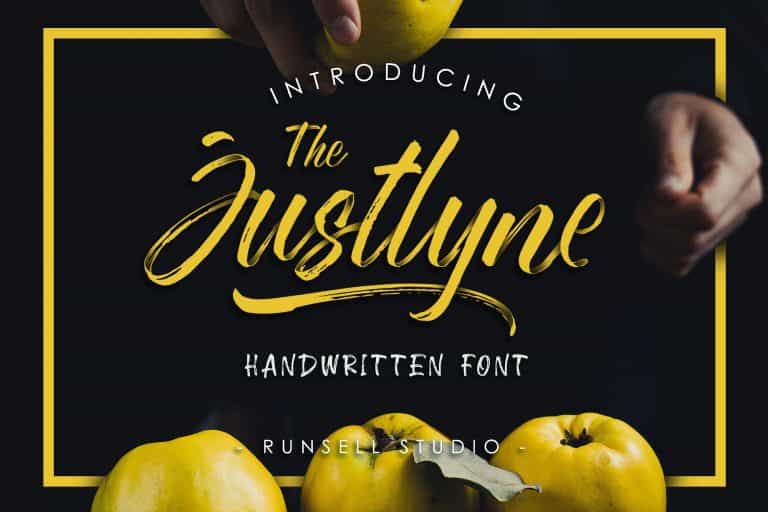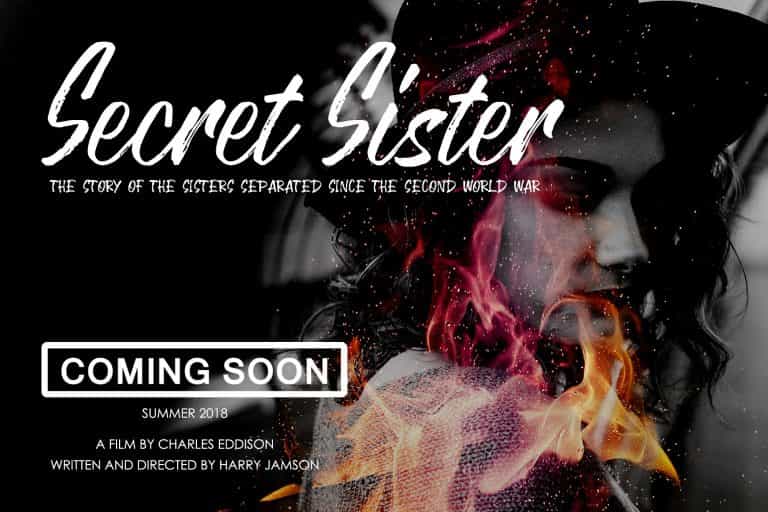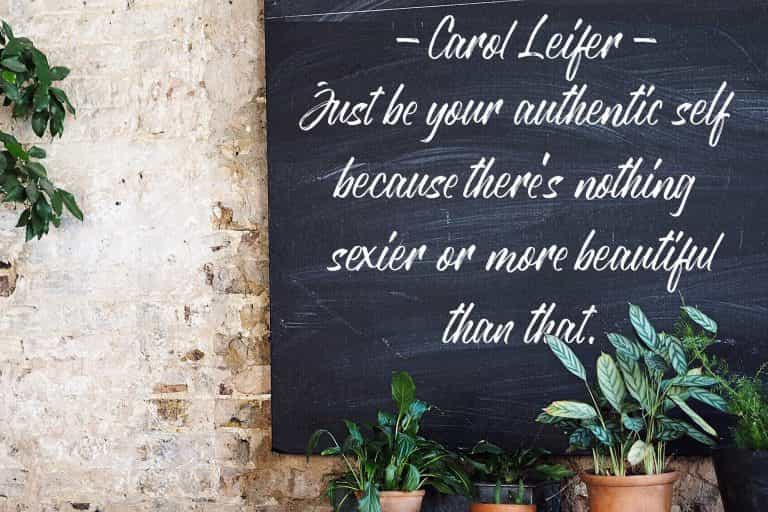
Discover Justlyne Brush Font, part of the Brush collection—a versatile and unique font perfect for adding a personal touch to your projects. Download it for free and enjoy crafting designs with style, from invitations to social media posts. This font is available exclusively for personal use, giving you the freedom to create without limits. Unlock your creativity with Justlyne Brush Font today!
Introducing Justlyne Font. It is a modern and original brush, which will make your design look charismatic to the clients. The Justlyne font is made by a creative hand with natural texture given, thus it has the feel of a brush pen.